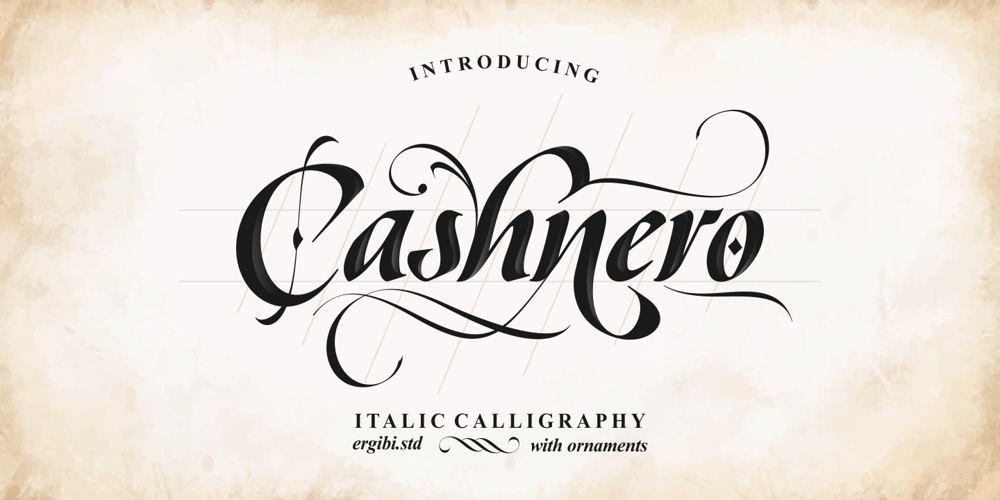
Cashnero Font Family was designed by Riyadh Rahman and published by Ergibi Studio. Cashnero contains 2 styles and family package options. Cashnero – Italic Calligraphy font inspired by the traditional Calligraphy. With its beautifully crafted knots and intricate patterns, this font brings a touch of ancient modern to your designs. The addition of ornaments makes the traditional feel of this font even more amazingif you have any questions, don’t hesitate to contact usErgibi Studio